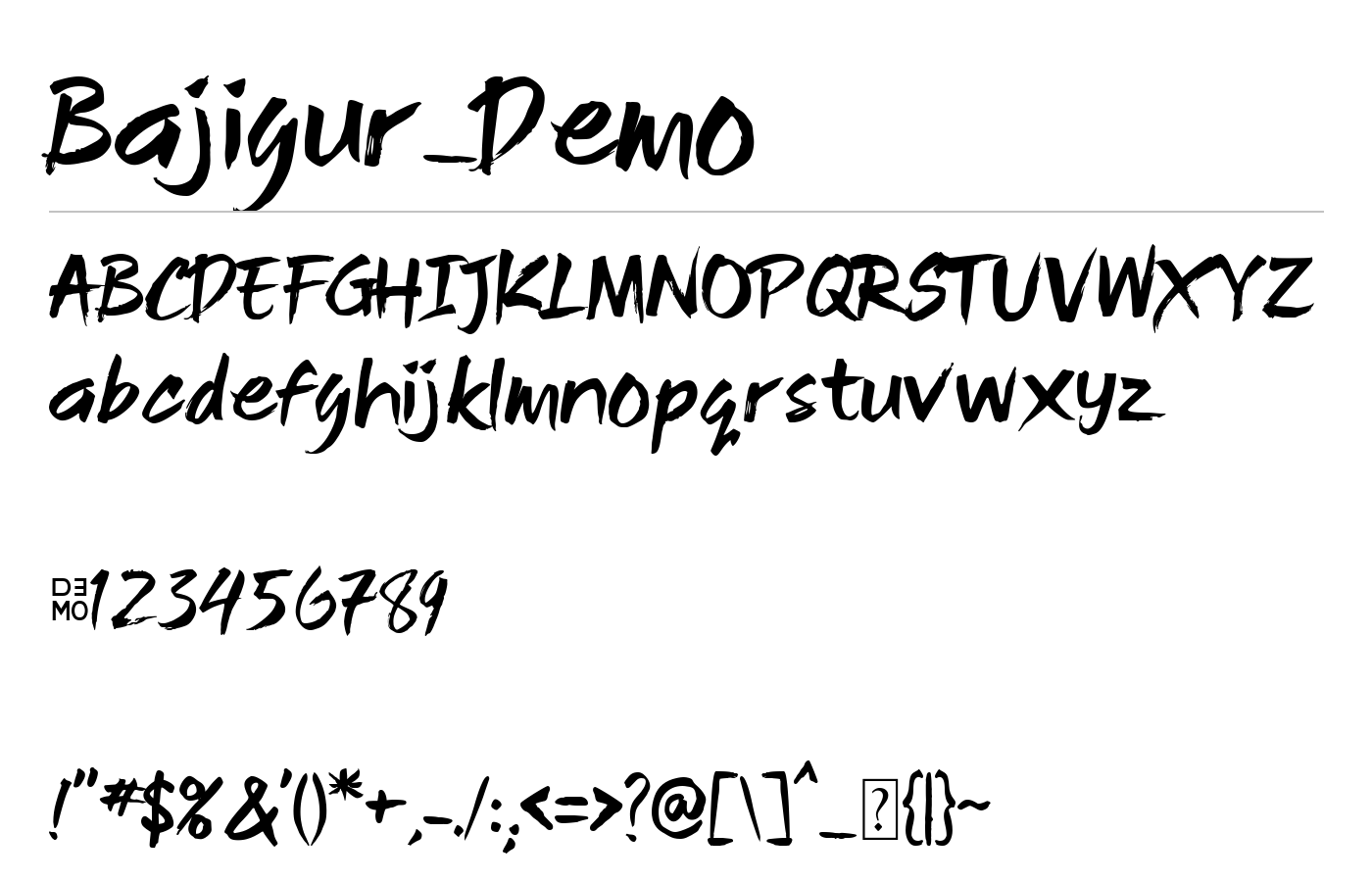
Bajigur_Demo is a lively, brush-style sans serif font with an informal and energetic personality. Its irregular, hand-painted strokes and medium weight give it a casual, artistic feel that works well for creative projects, playful branding, and dynamic headlines. This font adds a personal, expressive touch suited for posters, invitations, and any design seeking a friendly, handcrafted vibe.
Bajigur_Demo Font
About Bajigur_Demo Font
| Font family | Bajigur_Demo Font |
| Designer | Wasito Utomo (ketapel creative) |